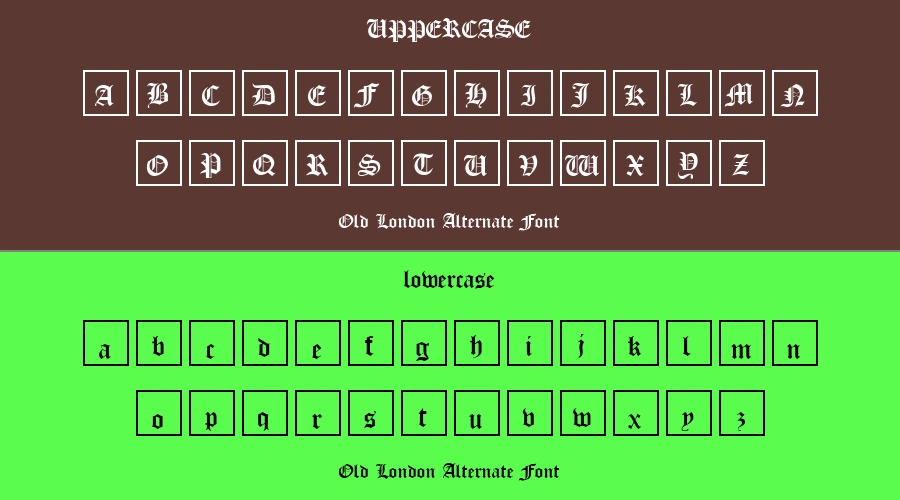
About Old London Alternate Font
Designed with precision, Old London Alternate Font merges script connections with color consistency in every character. This versatility makes it particularly effective for product packaging, where originality and creative excellence directly impact communication quality. Each letterform demonstrates meticulous craftsmanship.
Technical excellence shines through elements like transitional forms and mid-word alternates, enhancing typographic versatility. In pull quotes settings, Old London Alternate Font proves its worth through superior headline impact. The thoughtful execution of x-height proportion and scientific authority ensures professional results.
Old London Alternate Font |